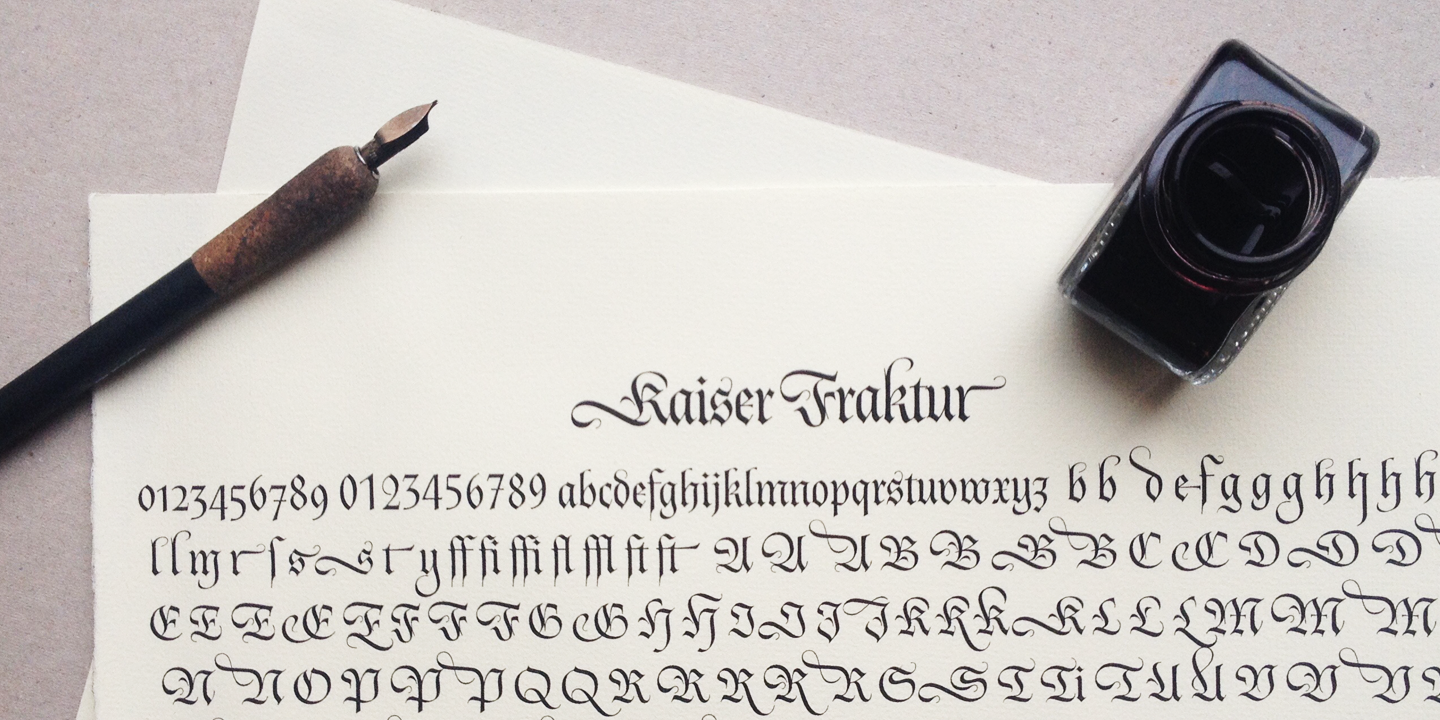
Kaiser Fraktur Font Free Download is a striking blackletter typeface inspired by traditional German Fraktur scripts. Its ornate and angular letterforms evoke a sense of history, craftsmanship, and gothic elegance, making it perfect for decorative uses, branding, posters, and artistic projects.
This font’s dramatic style lends itself well to headlines and display text, where its unique character can shine. Whether you want to create vintage-inspired designs or give your project an old-world charm, Kaiser Fraktur adds authenticity and impact.